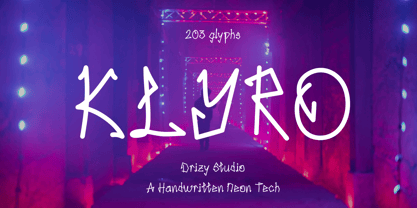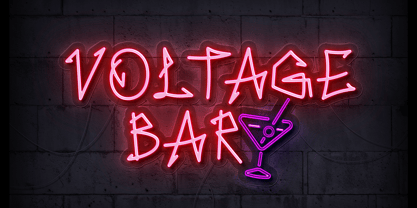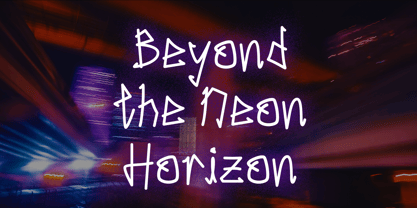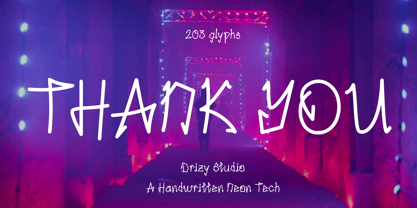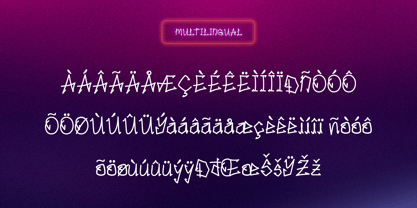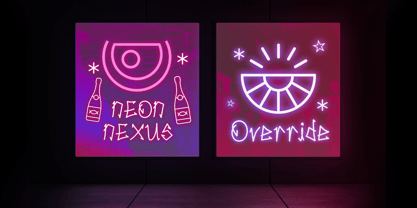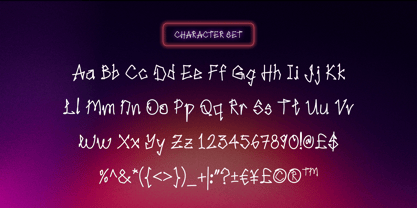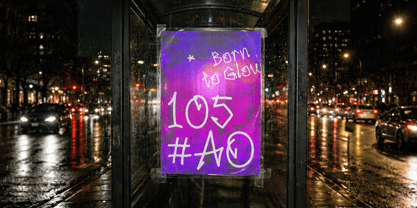
Klyro
Klyro – Handwritten Neon Text
Klyro is a bold handwritten neon font that blends expressive strokes with a sleek futuristic aesthetic. Inspired by cyberpunk visuals, digital interfaces, and glowing neon signage, Klyro delivers a unique typographic style that feels energetic, modern, and tech-forward. Its fluid handwritten form combined with sharp digital influences makes it perfect for projects that demand attention.
Ideal for logos, gaming graphics, music covers, technology branding, posters, social media, streaming overlays, UI designs, and futuristic marketing materials, Klyro adds a vibrant cyber atmosphere to any design.
Klyro – Handwritten Neon Text Signature Font features:
• Uppercase & Lowercase
• Punctuation & Numbers
• Multilingual